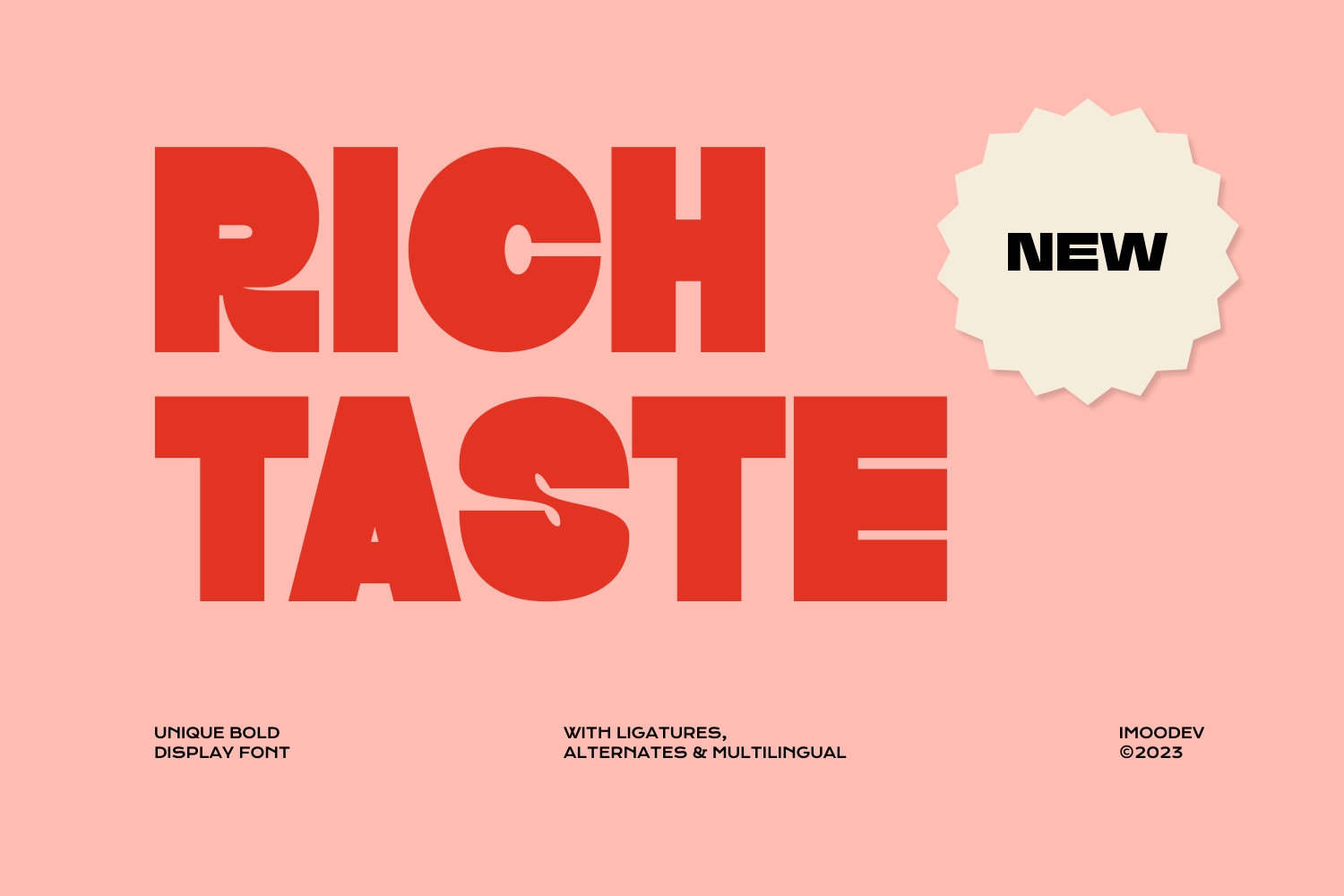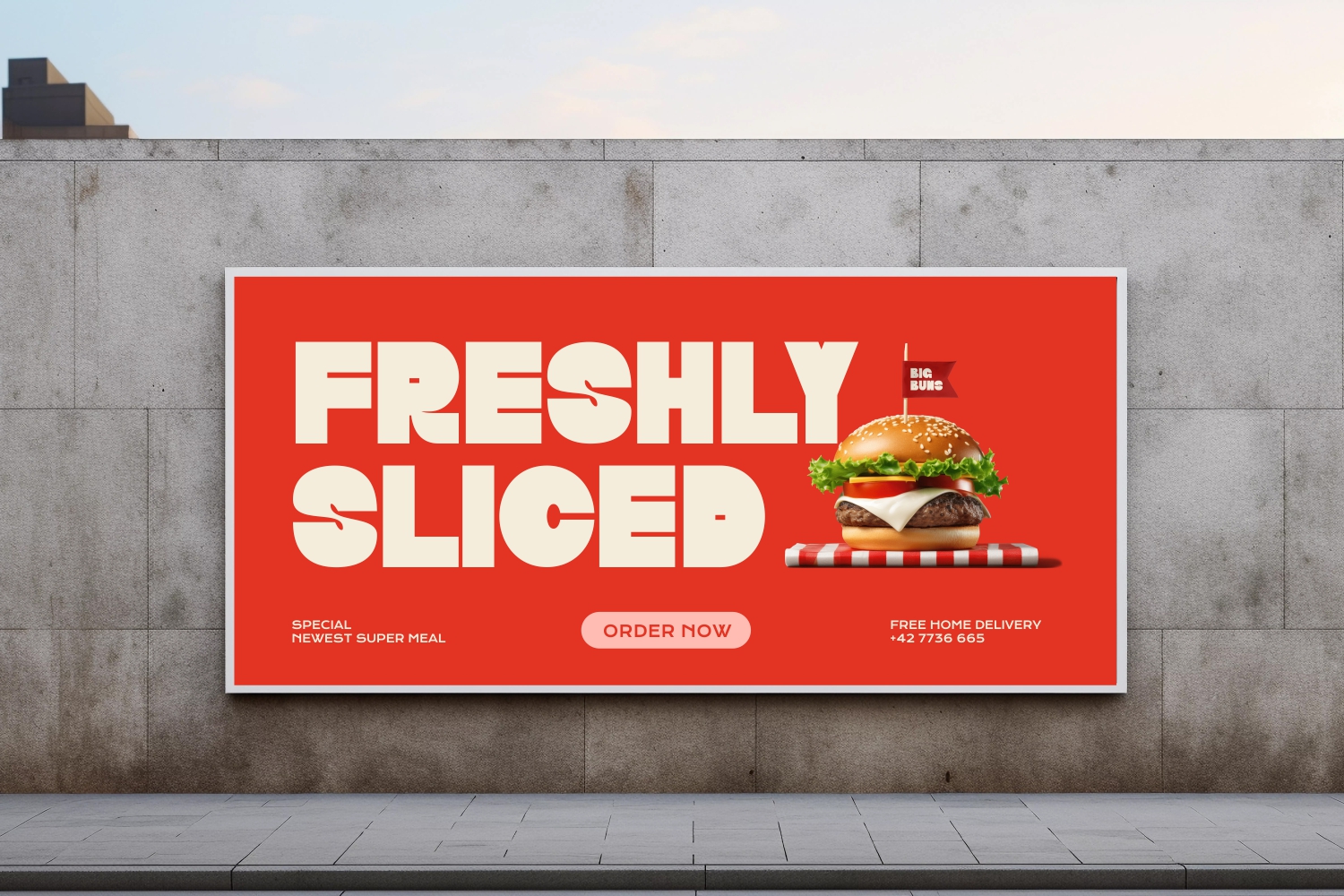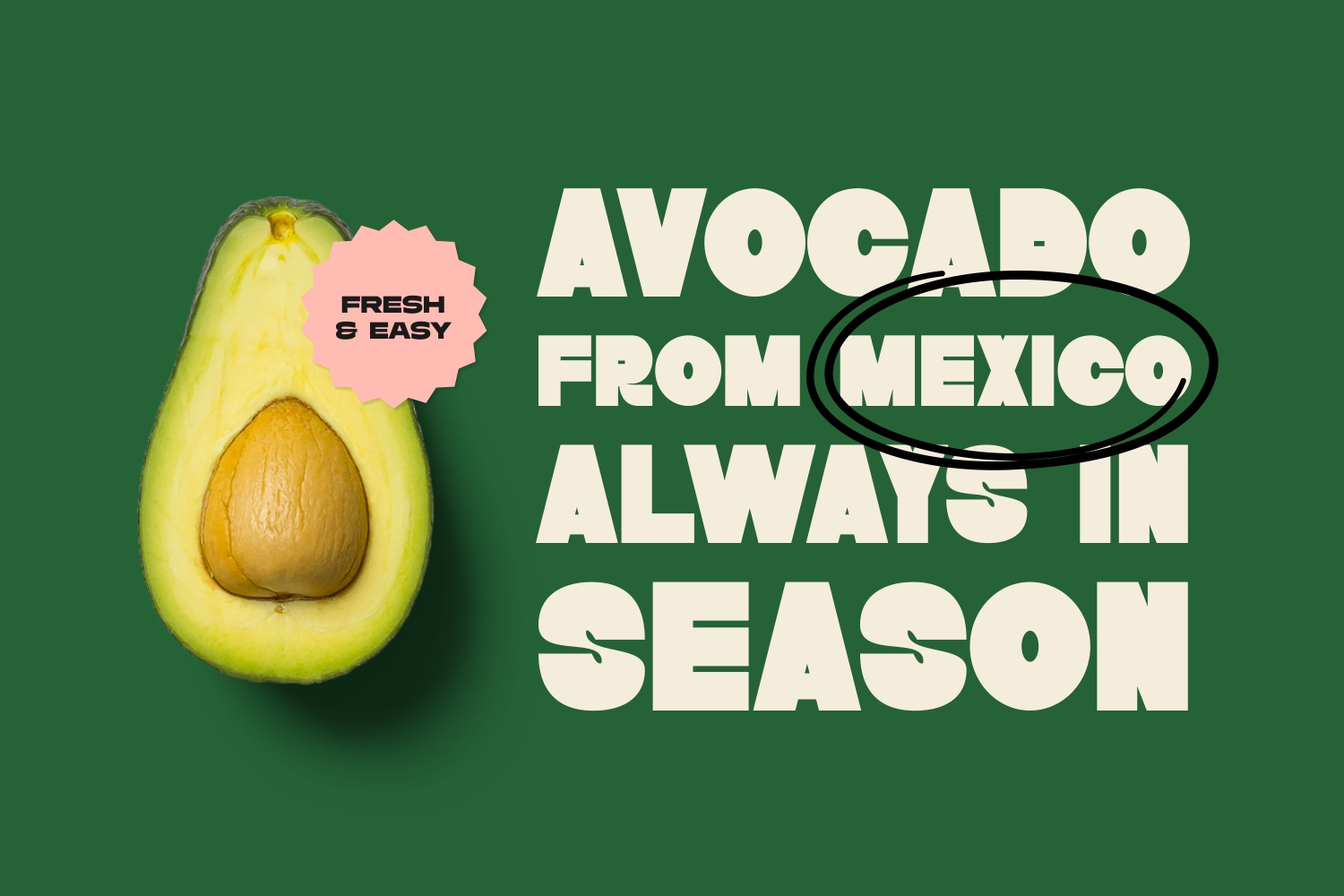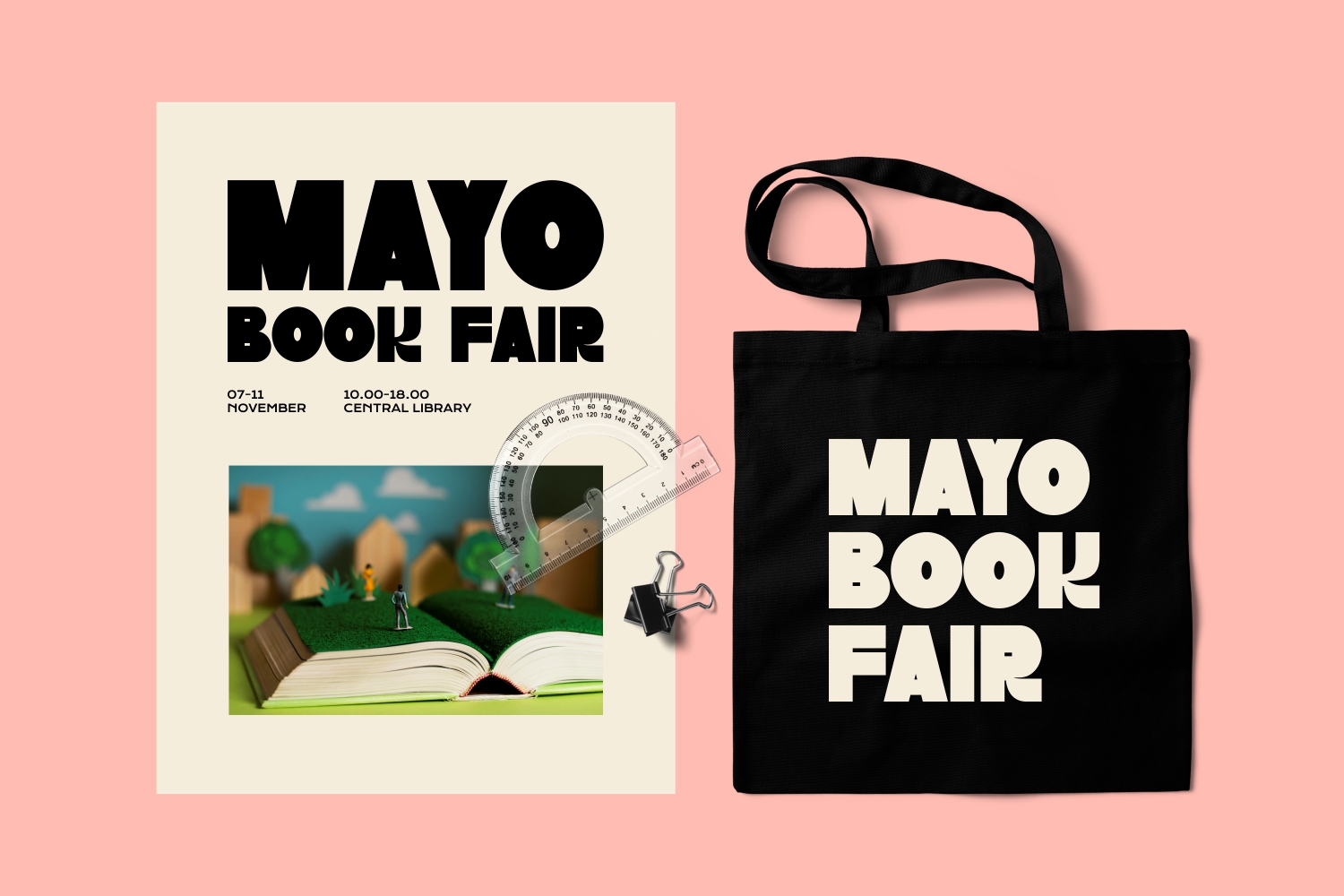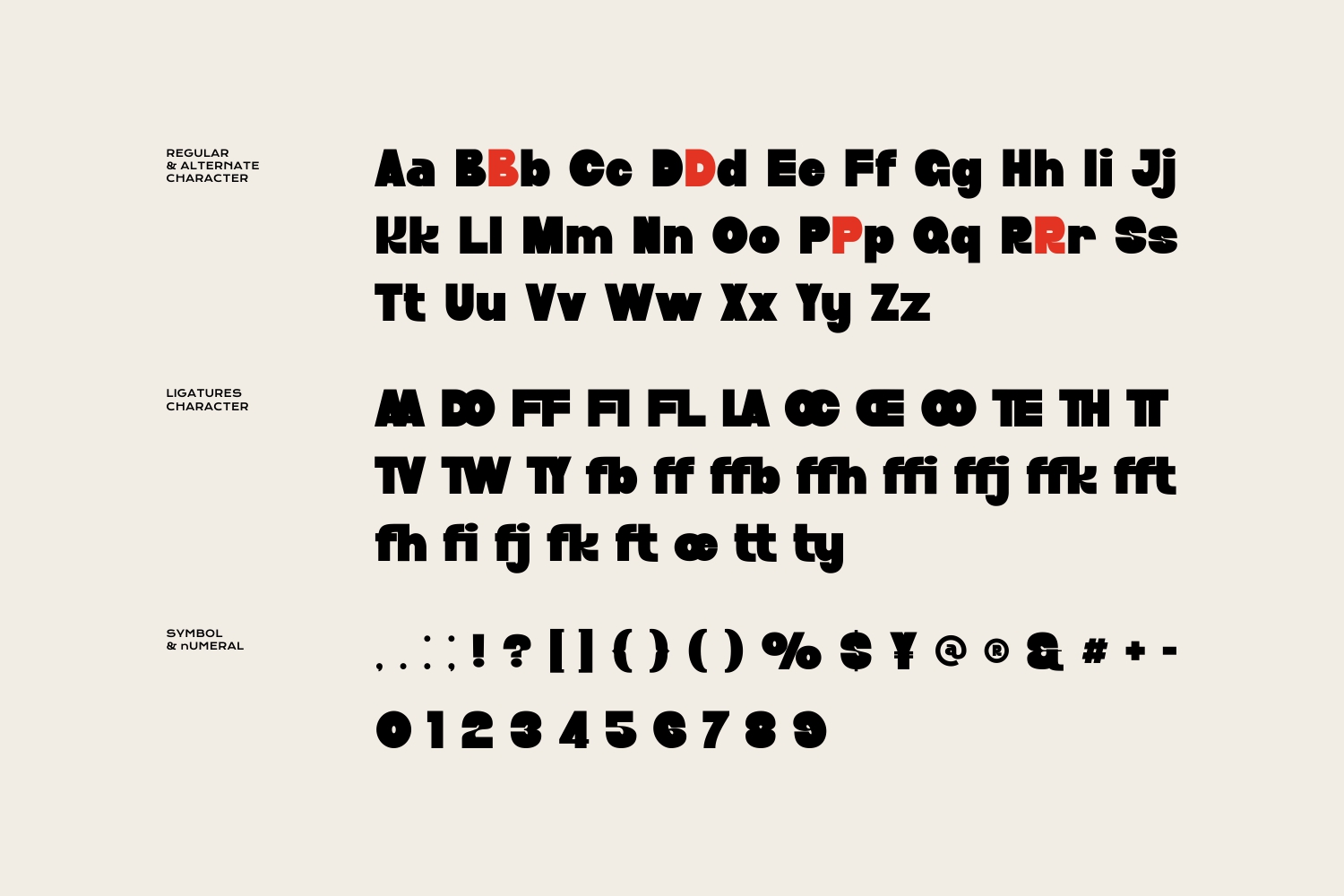
Rich Taste is a unique bold display font designed to make an instant impact. With its chunky and expressive letterforms, this typeface is perfect for projects that demand attention and boldness. The strong geometric shapes combined with playful curves give it a modern yet retro feel, making it ideal for branding, packaging, posters, and advertising campaigns. Its versatility is enhanced by alternate characters and ligatures, allowing designers to create custom typography that feels both fresh and distinctive.
This font also comes with multilingual support, ensuring its usability across various global projects. Rich Taste embodies a bold statement while maintaining readability, making it suitable for both digital and print applications. From food branding and fashion campaigns to editorial headlines and event promotions, this font delivers a strong visual personality. Its ability to balance boldness with creativity makes it a reliable choice for designers who want to elevate their work with a font that feels powerful and stylish.